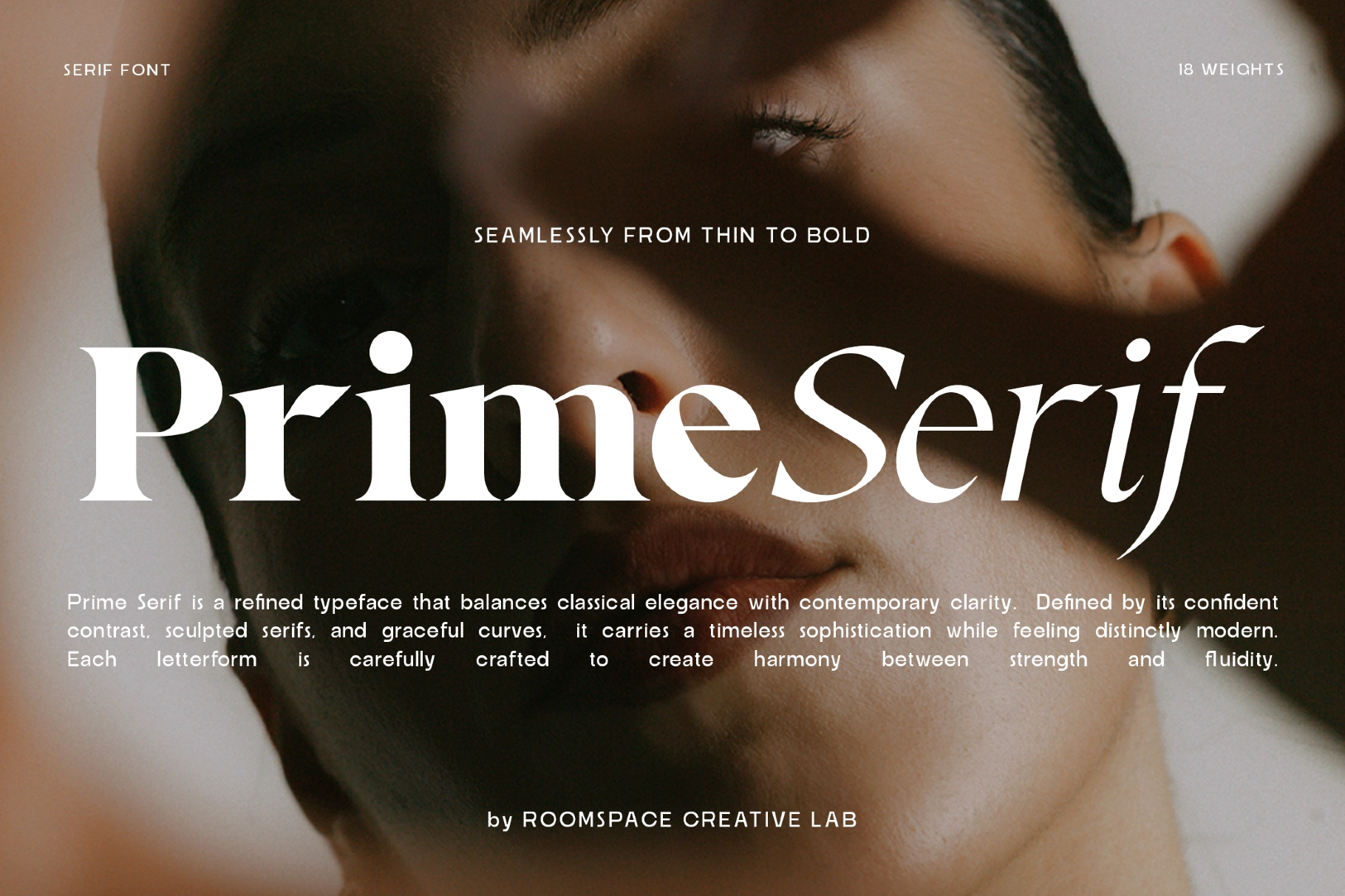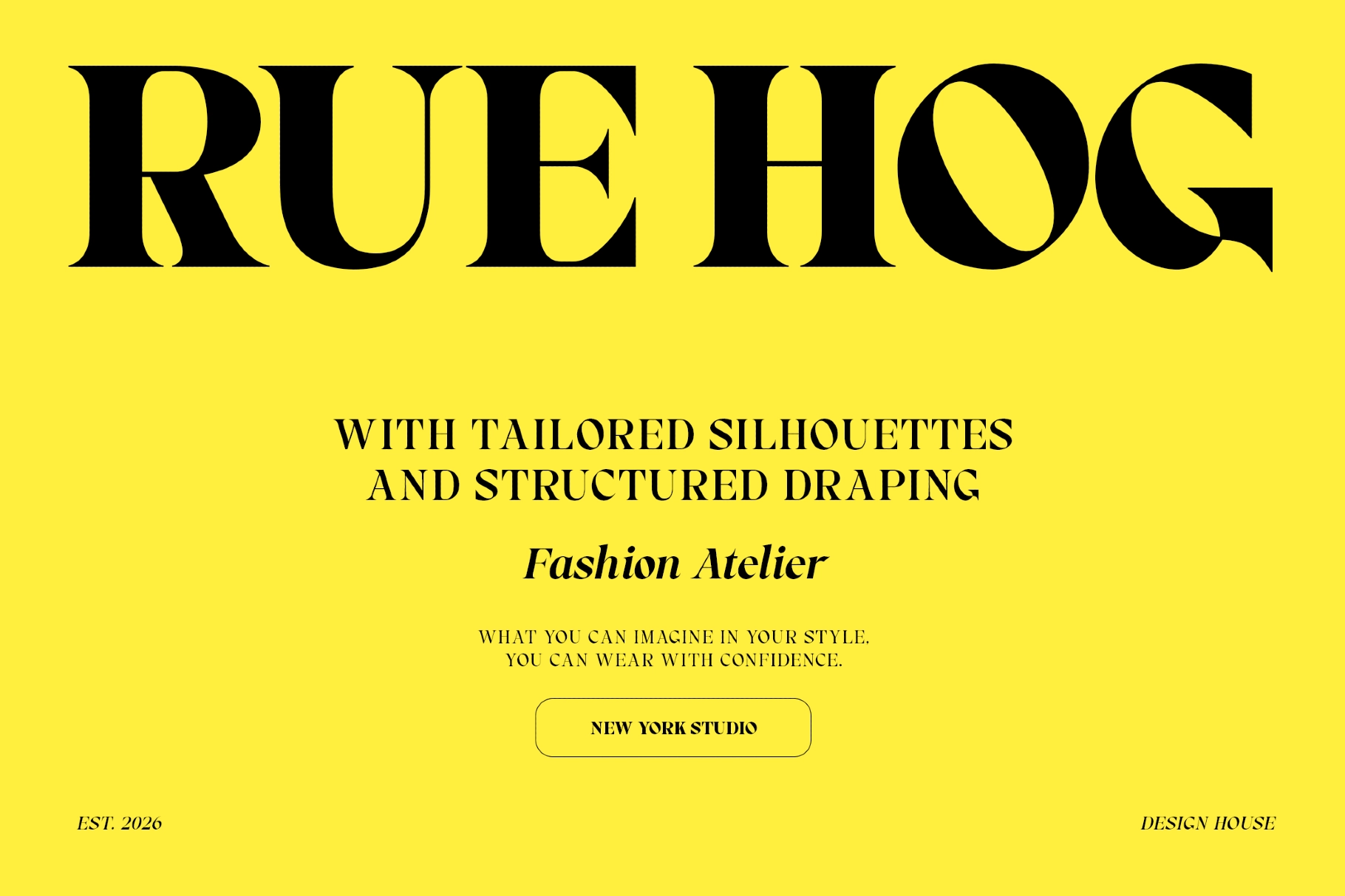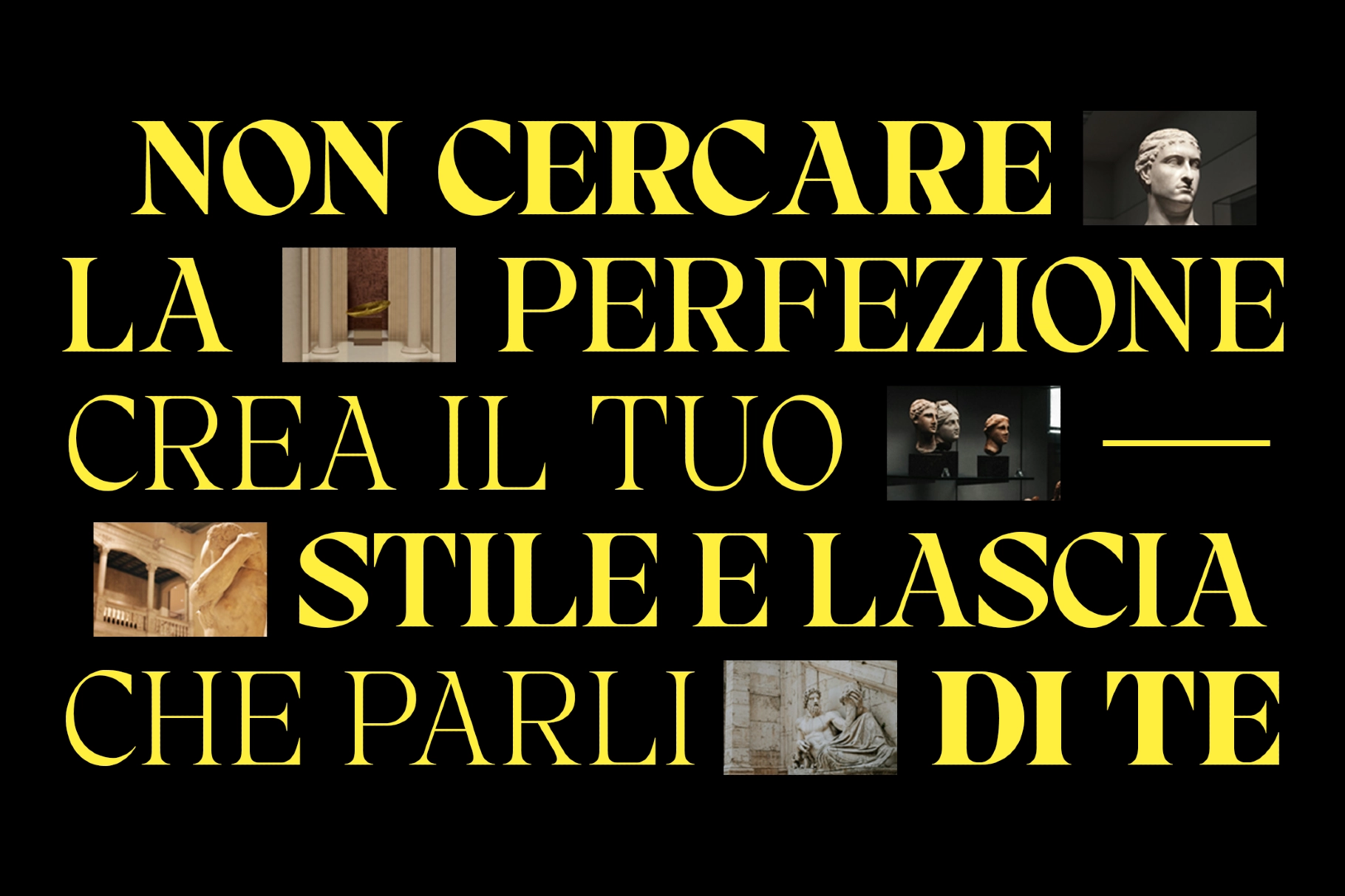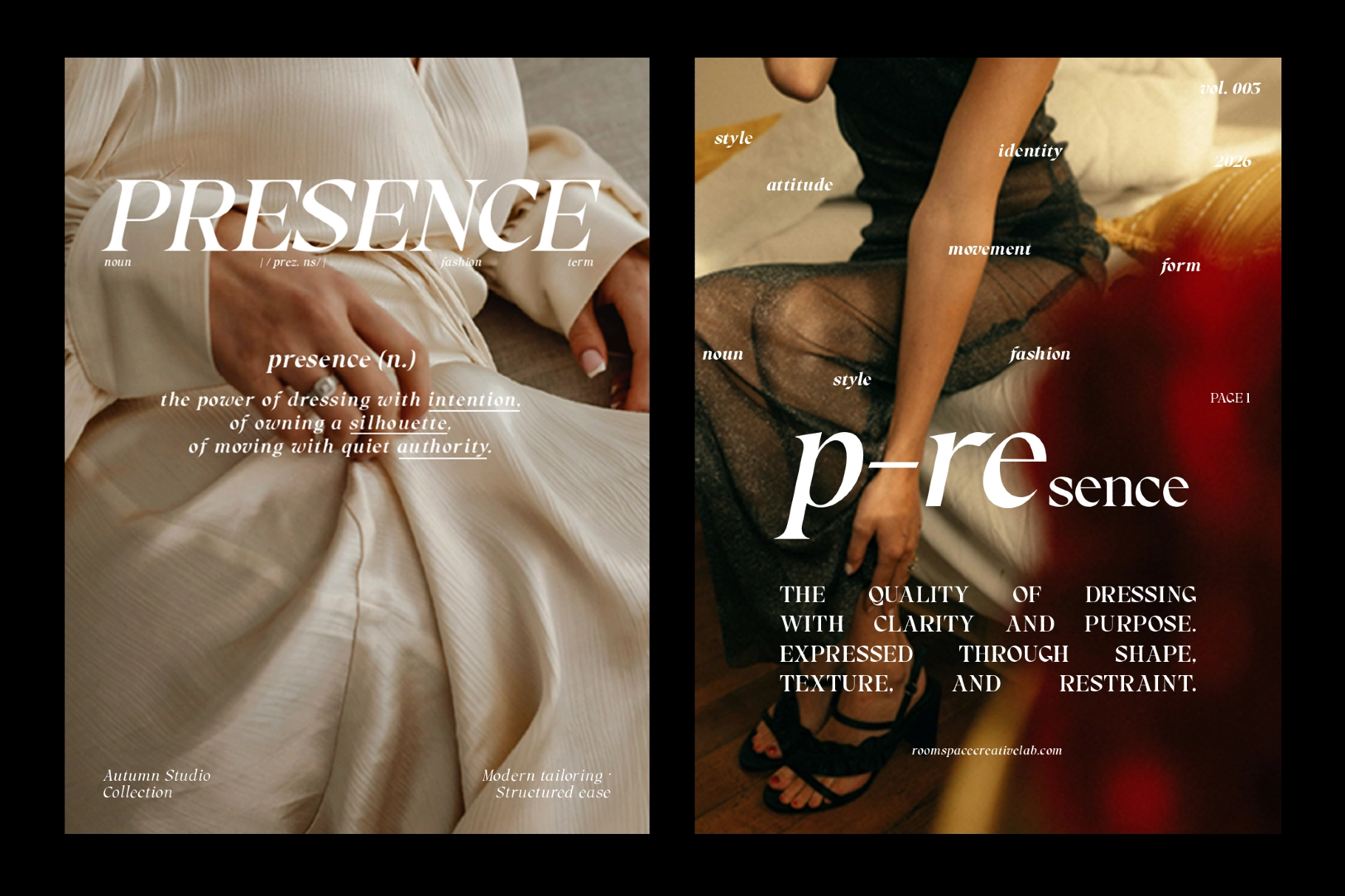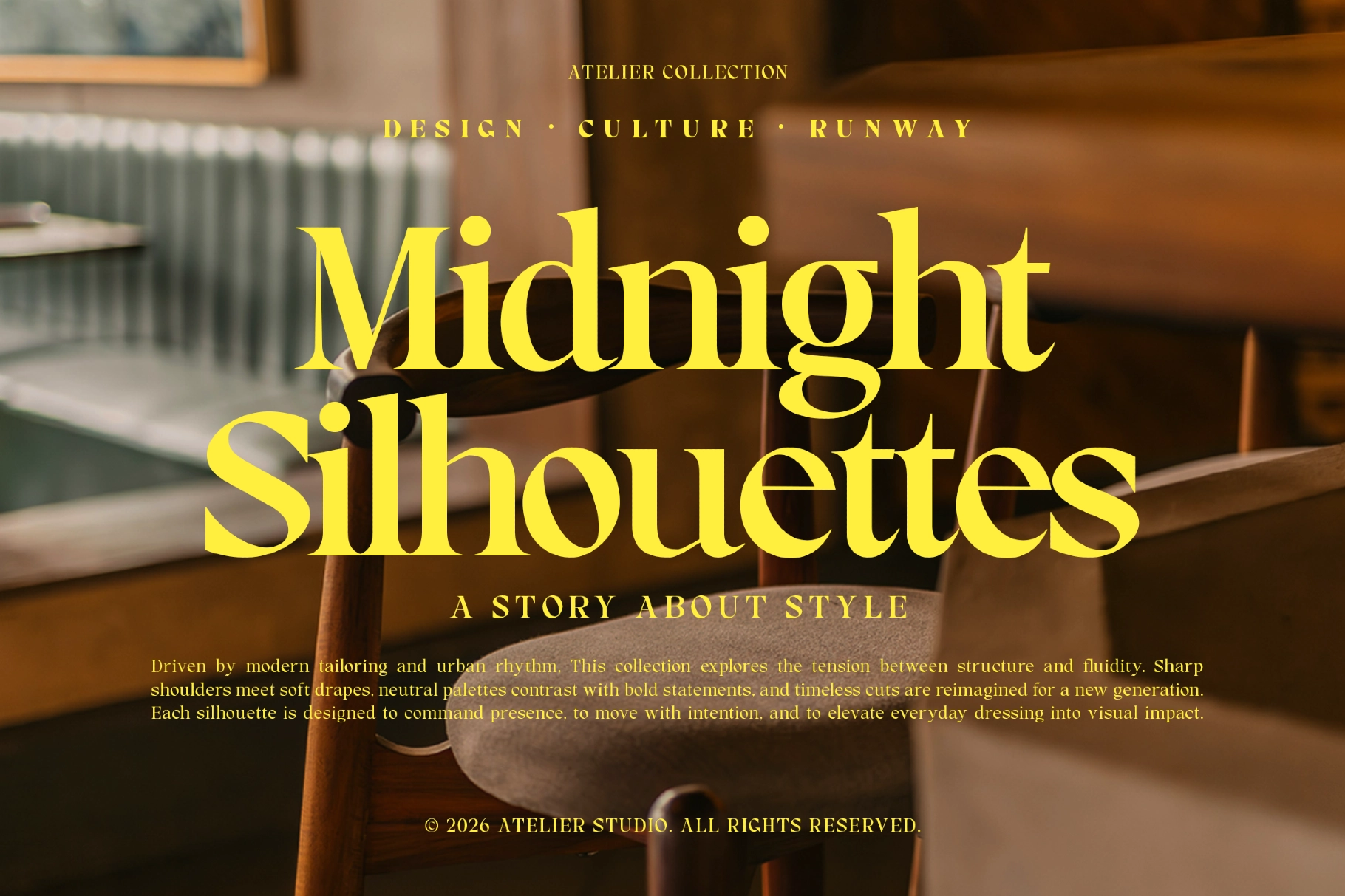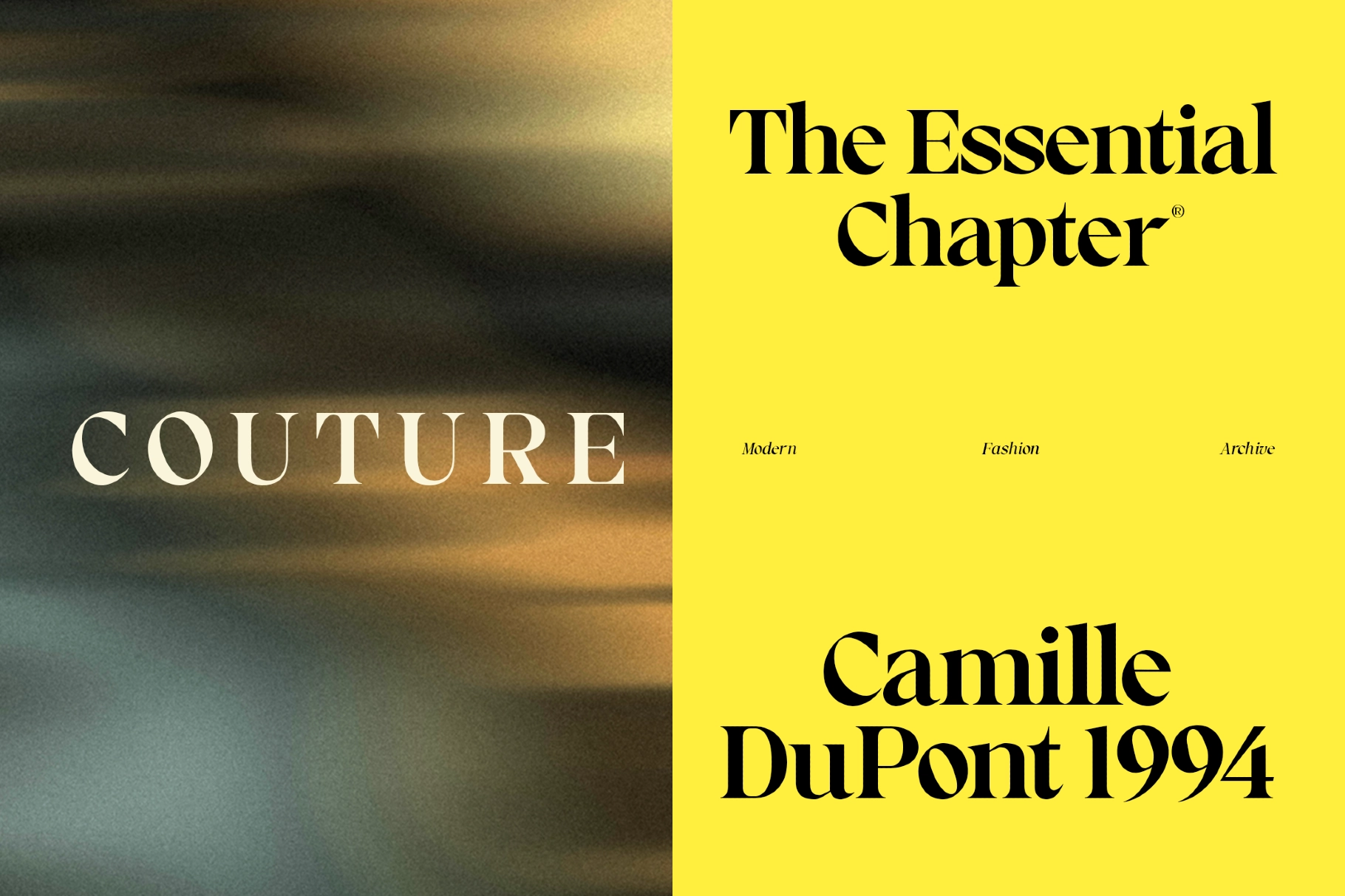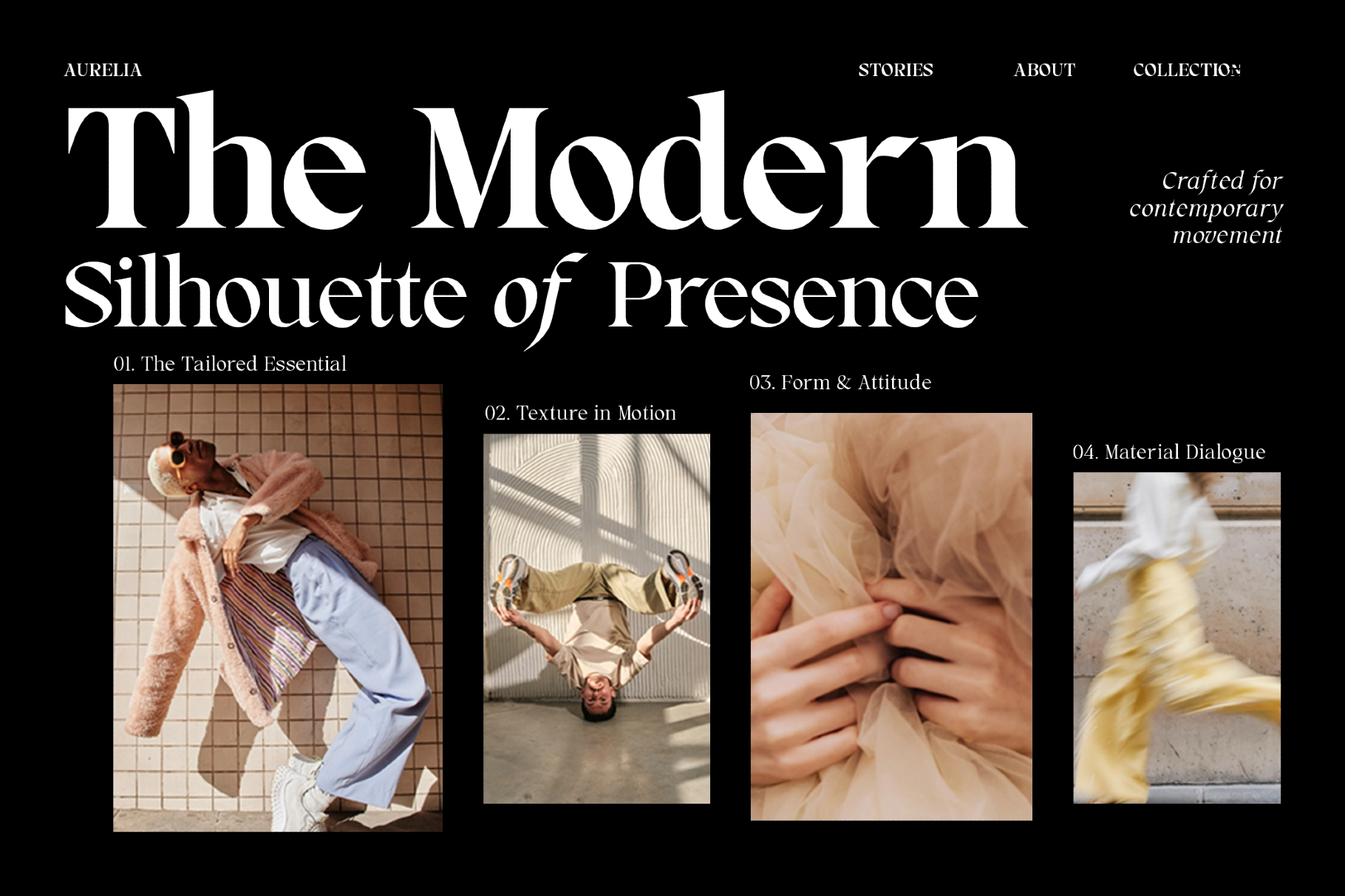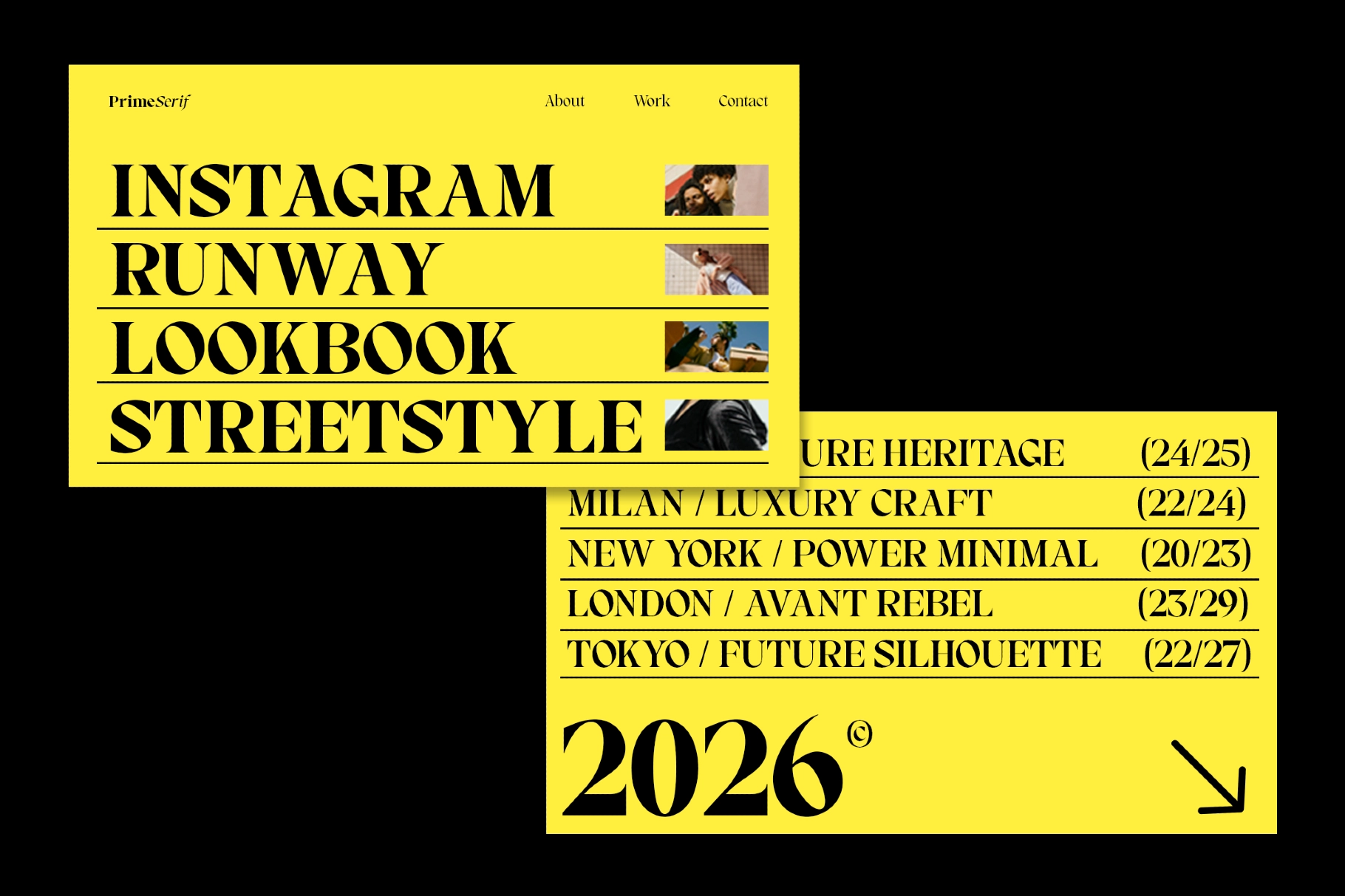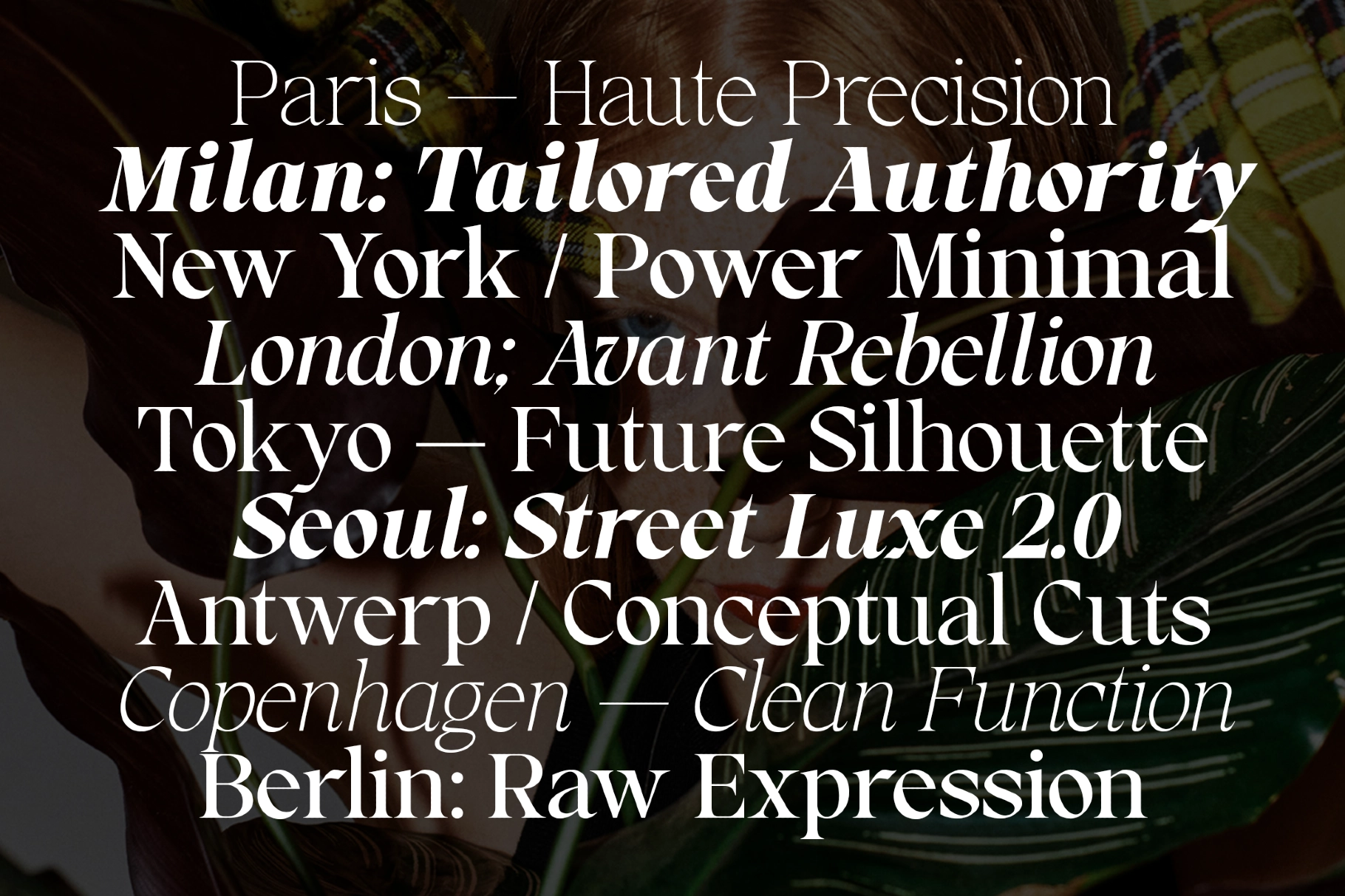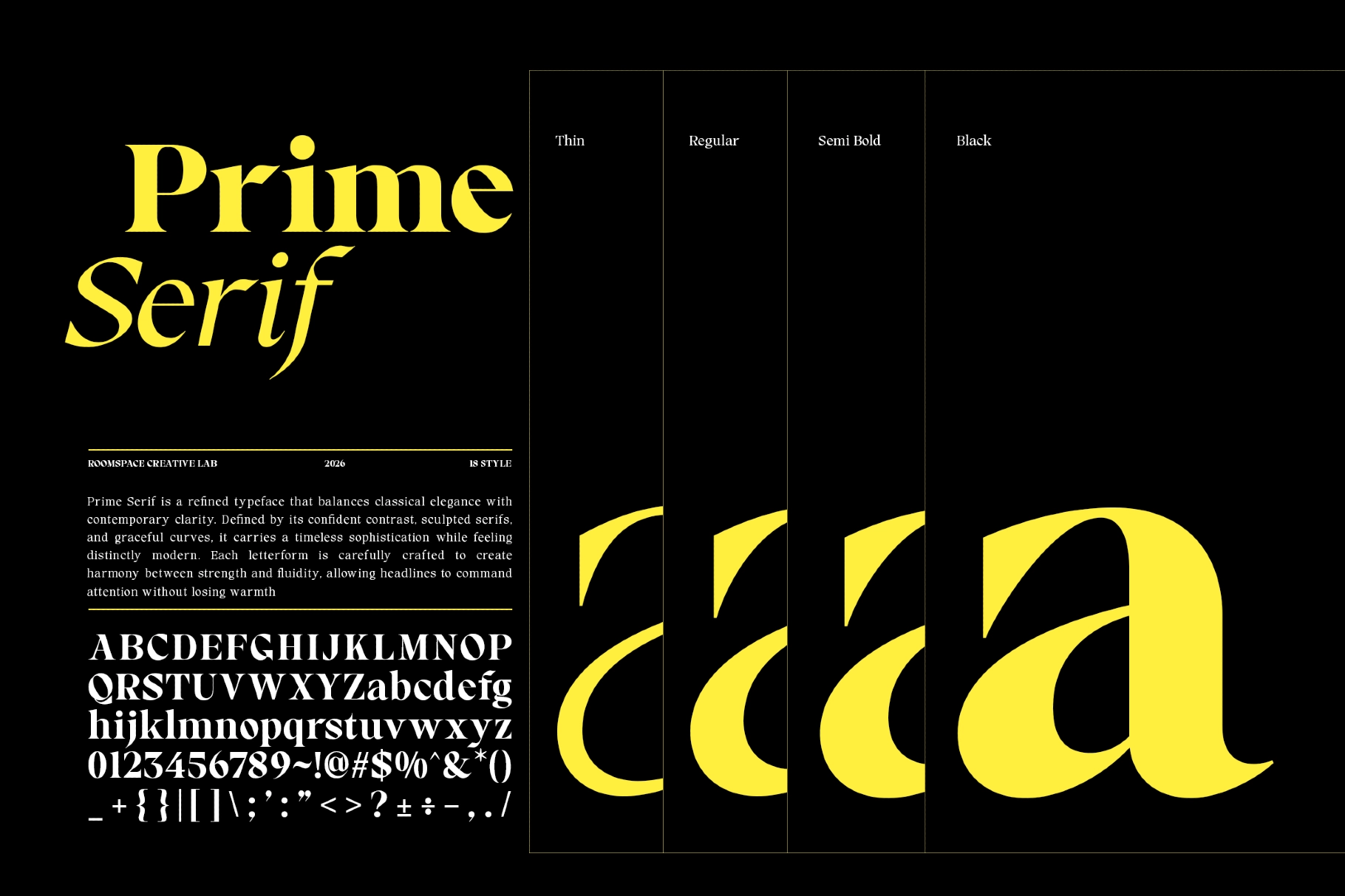
RCL Prime Serif – Modern Editorial Serif Family
The font is an editorial serif family with high contrast, sculpted terminals, and sharp classical tension. Its luxury character reads as polished and dramatic, with thin styles for graceful art direction and heavier cuts for commanding headlines.
Use RCL Prime Serif for fashion campaigns, magazine covers, luxury packaging, boutique identities, beauty branding, gallery posters, portfolio websites, lookbooks, social media graphics, event invitations, campaign landing pages, premium marketing materials, and more. The italic styles add a fluid, expressive counterpoint, making the family useful for layered layouts with strong hierarchy.
- Thin to Bold weights